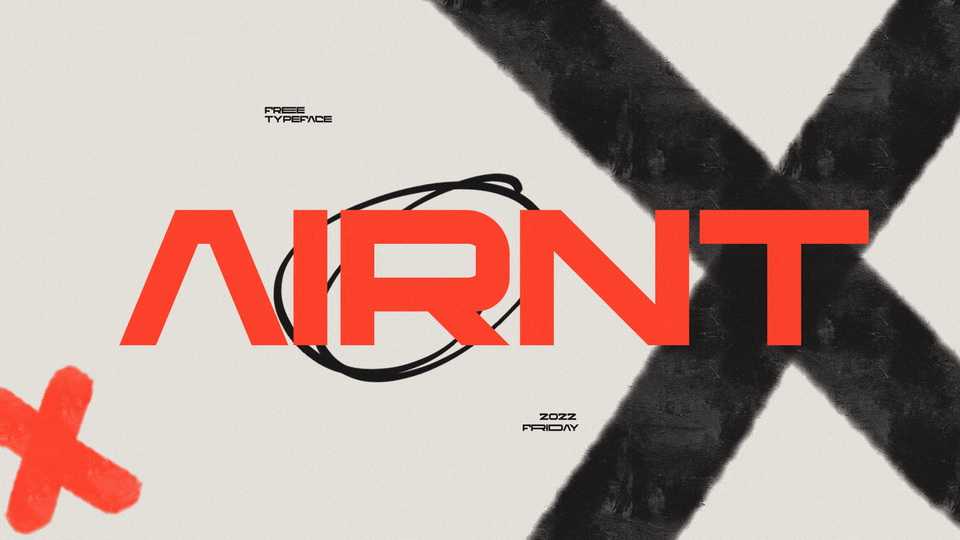
Download AIRNT font, a display typeface that holds a futuristic/urban vibe. AIRNT includes 4 weights/styles to choose from: Regular, Bold, Quantum and a special characters stretch version
Designer: Gregory Ortiz